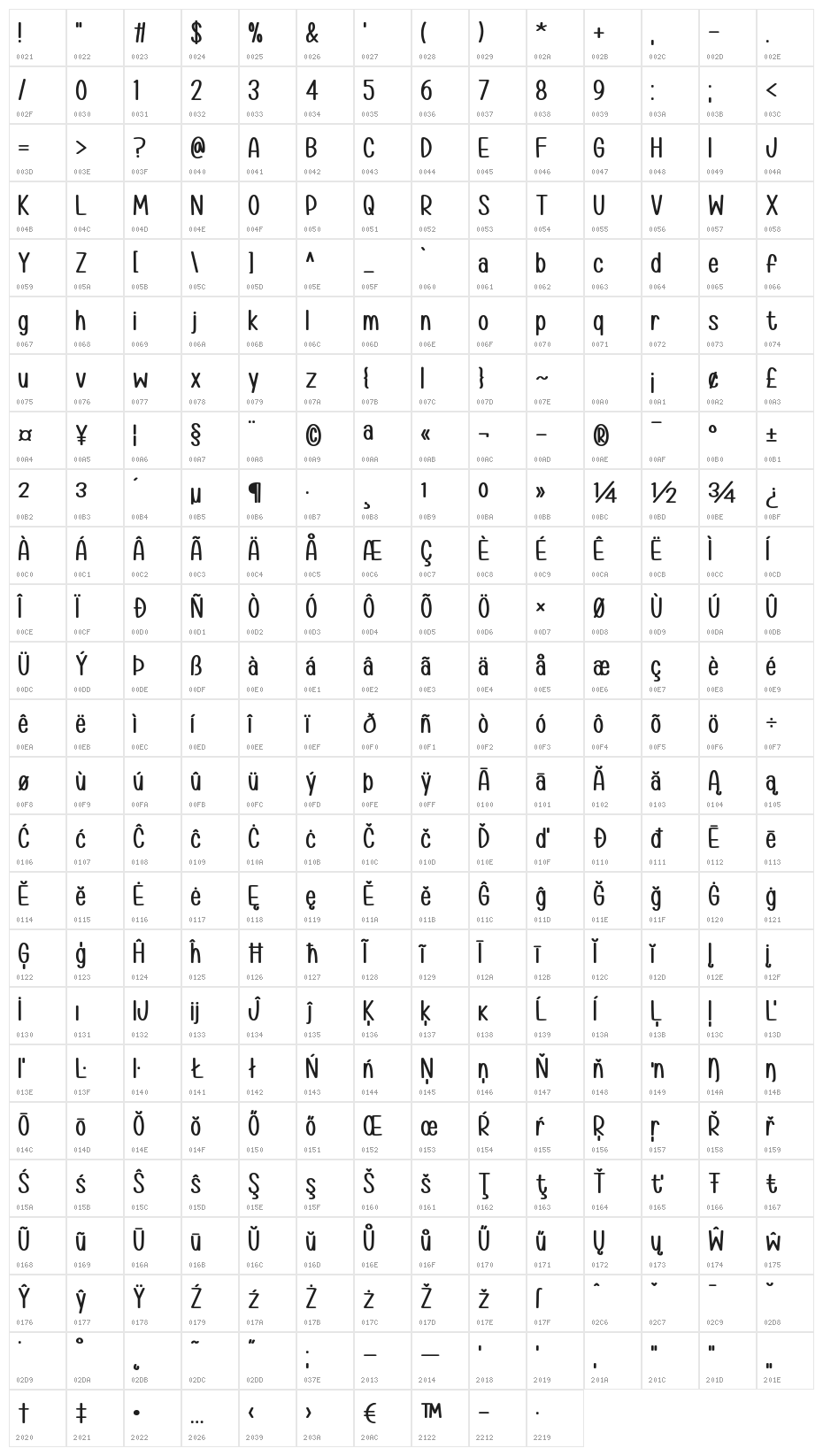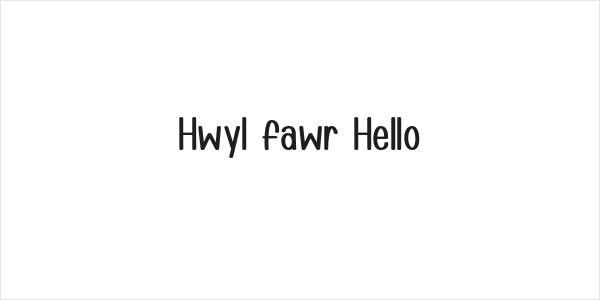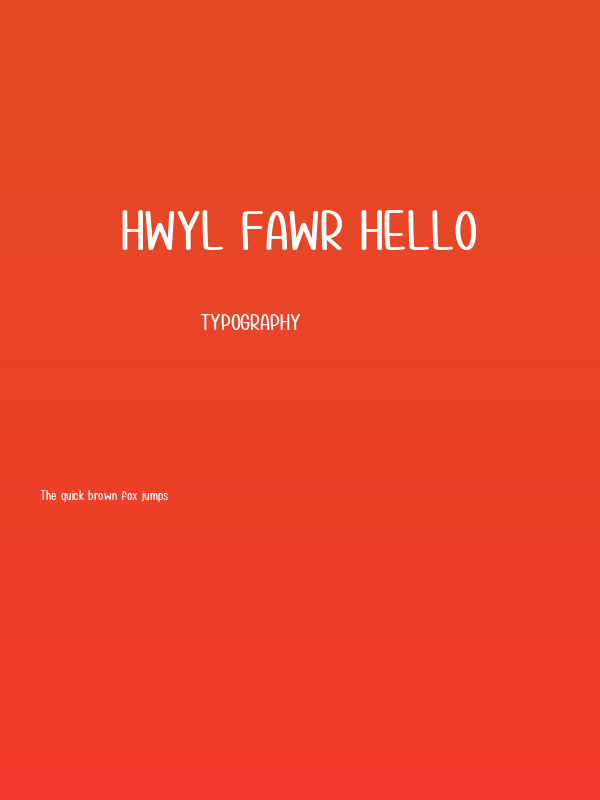
Hwyl fawr Hello Font
Hwyl fawr Hello Description
This font features a playful and casual handwritten style, characterized by its rounded edges and slightly uneven letterforms that give it a friendly and approachable appearance. The uppercase and lowercase letters maintain a consistent height, while the numerals and special characters blend seamlessly with the overall design. The strokes are moderately thick, providing a balanced weight that enhances readability without sacrificing its whimsical charm. This font's informal nature makes it suitable for projects that aim to convey warmth and creativity.
| Use Case | Headlines, Logos, Informal text |
| Proposed Projects | Ideal for children's books, greeting cards, playful branding, and social media graphics. |